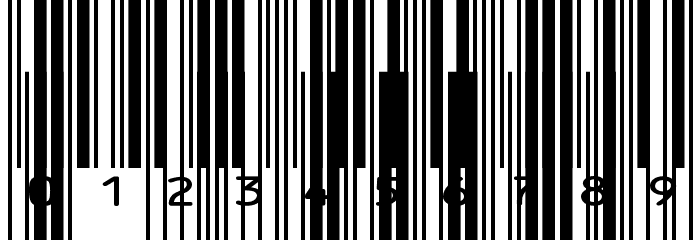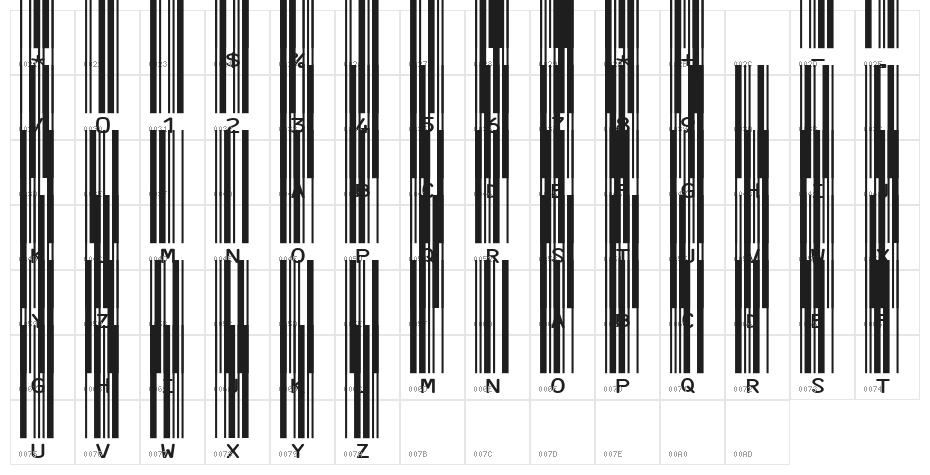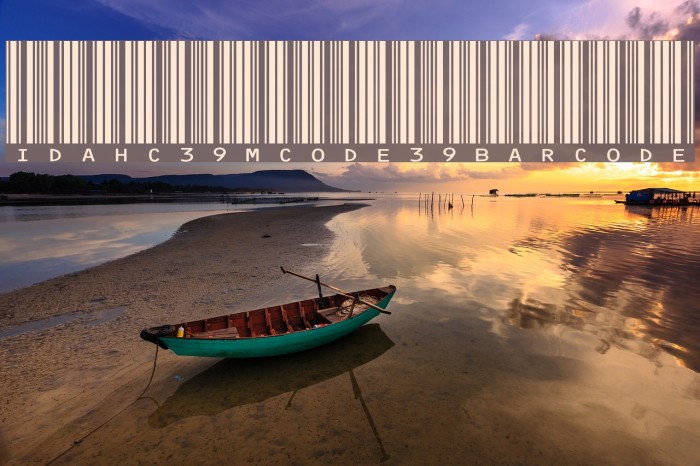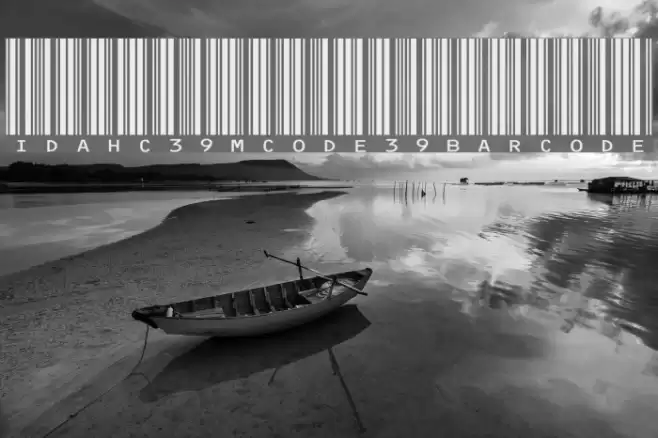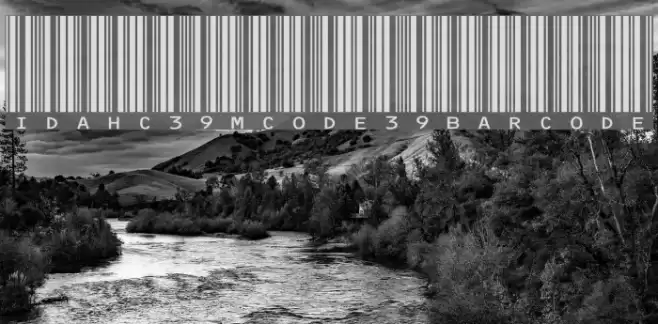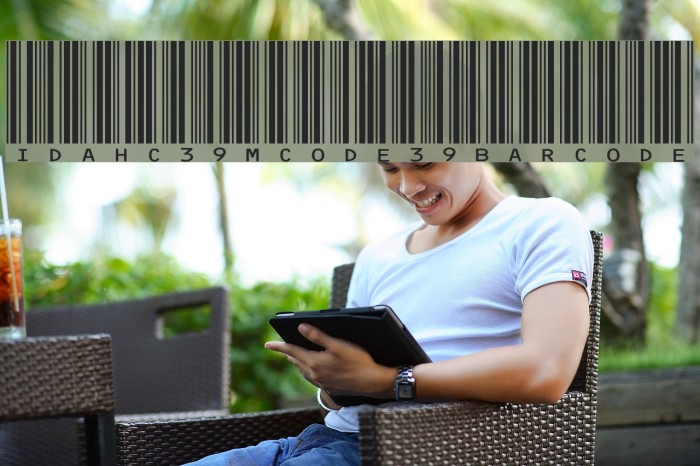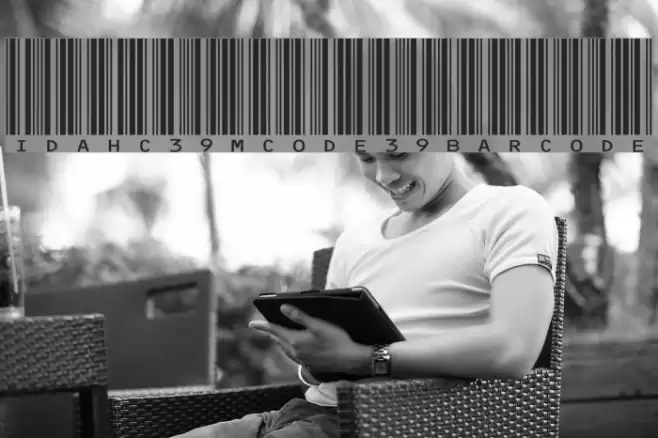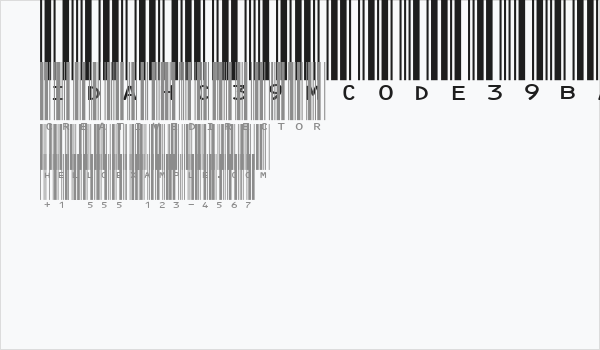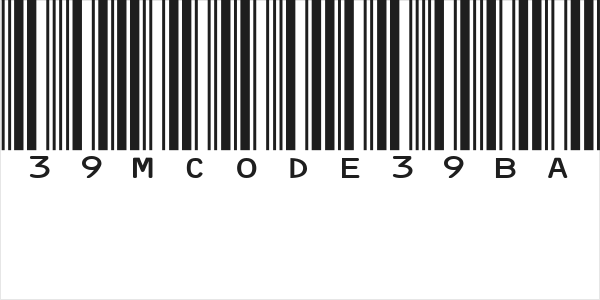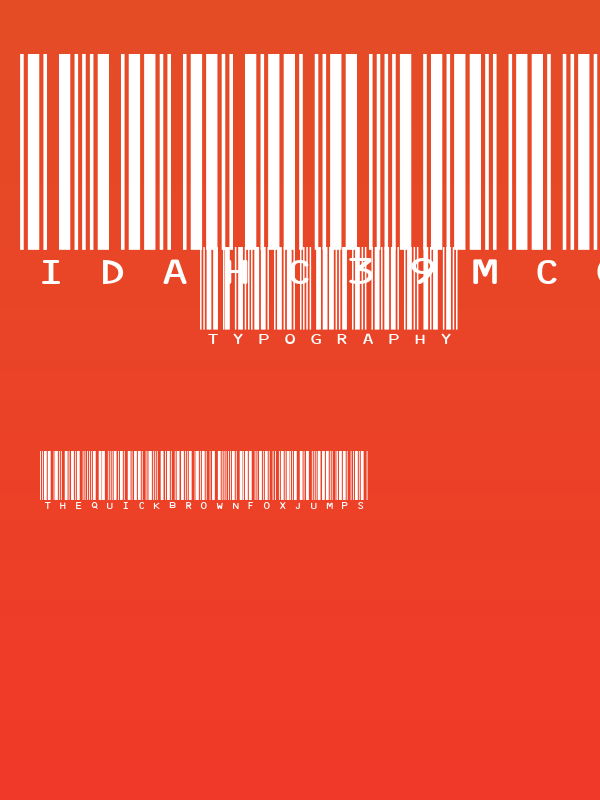
IDAHC39MCode39Barcode Font
IDAHC39MCode39Barcode Description
This is a barcode font designed for encoding alphanumeric characters into barcodes. Each character is represented by a unique pattern of bars and spaces, allowing for machine-readable data input. The design is utilitarian, focusing on clarity and precision to ensure accurate scanning. The font includes uppercase letters A-Z, numbers 0-9, and a selection of special characters. It is widely used in inventory management, shipping, and retail for its reliability and ease of use.
Use CaseBarcodes, Inventory management, Retail labeling
Proposed ProjectsIdeal for inventory systems, product labeling, shipping and logistics applications, and retail point-of-sale systems.